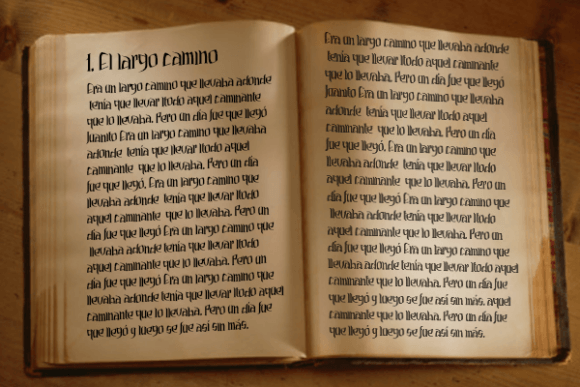
Introduction to Shizak Font Font
Fonts play a crucial role in design, and the Shizak Font font is a typeface that brings both character and versatility to any project. Whether you’re working on a branding project, a website, or a print design, the Shizak Font font offers a unique style that can elevate your work.
Shizak is a unique font that combines antique style with a touch of fantasy.
It features elegant, decorative letters that can add a magical feel to your designs Perfect for projects that need a vintage look with a whimsical twist.
Key Features of Shizak Font Font
Why Choose Shizak Font Font?
The Shizak Font font is more than just a typeface – it’s a design tool that helps you communicate your message with style and clarity. Its unique character set and versatile design make it suitable for a wide range of applications, from elegant invitations to bold headlines.
With its carefully crafted letterforms and balanced proportions, the Shizak Font font ensures readability and visual appeal across all mediums.
What makes Shizak Font font special?
The Shizak Font font stands out with its unique design, exceptional readability, and versatility across various design applications.